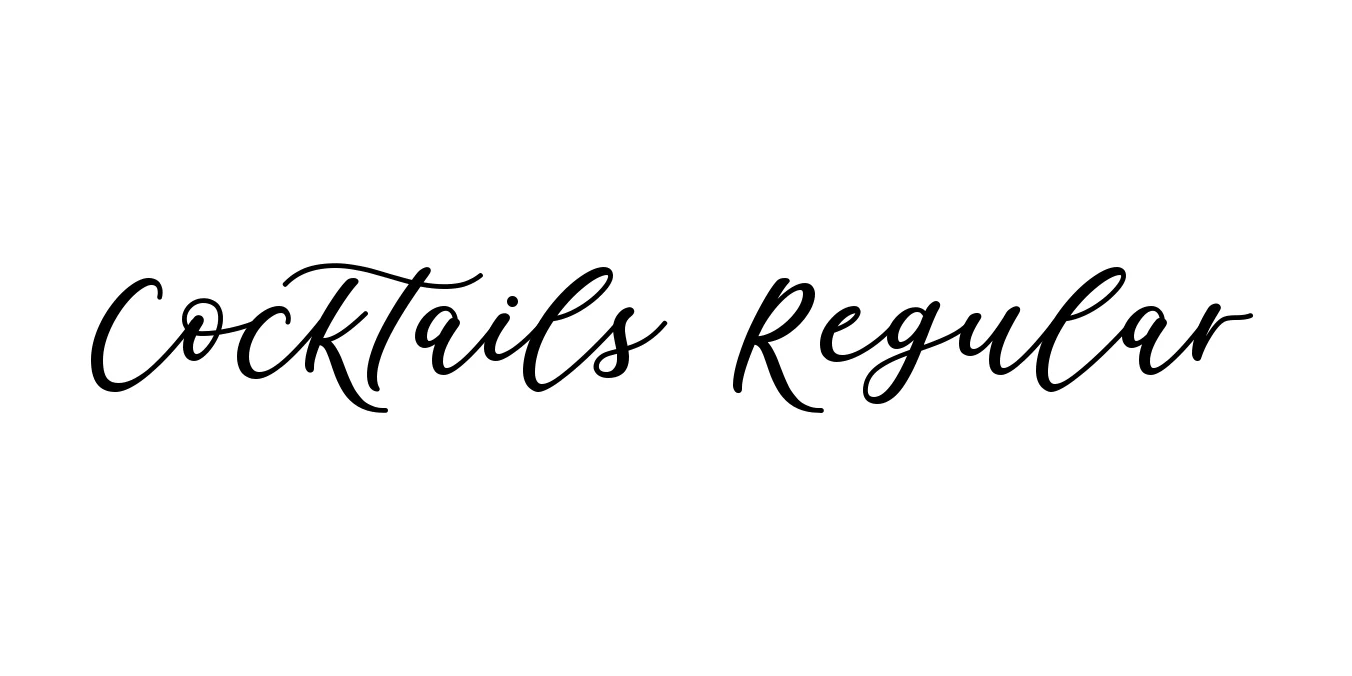
Cocktails Regular
Designed by Leslie Cabarga
Cocktails Regular is a sophisticated script font designed by the renowned typographer Leslie Cabarga. This typeface draws heavy inspiration from the elegant, hand-lettered signage and neon advertisements found in mid-century American bars and lounges. Its flowing curves and rhythmic stroke weights capture the optimistic spirit of the 1940s and 1950s, making it a staple for retro-themed designs and vintage typography projects.
The font is characterized by its smooth connections and slightly upright posture, which differentiates it from more aggressively slanted traditional cursives. It excels in branding environments where a touch of vintage class is required, such as luxury menu headers, artisanal product packaging, and nostalgic event invitations. Because of its distinct personality, Cocktails Regular remains a favorite among graphic designers looking to evoke a sense of classic Americana and sophisticated leisure.
Cocktails Regular Best Uses
Perfect for creating timeless, hand-lettered brand identities for boutique bars and upscale restaurants.
Ideal for sophisticated titles in cocktail lounges, cafes, or fine dining menus.
Adds a touch of class and nostalgia to wedding stationery or gala invitations.
Works beautifully for vintage-style beverage labels, confectionery, and luxury goods.